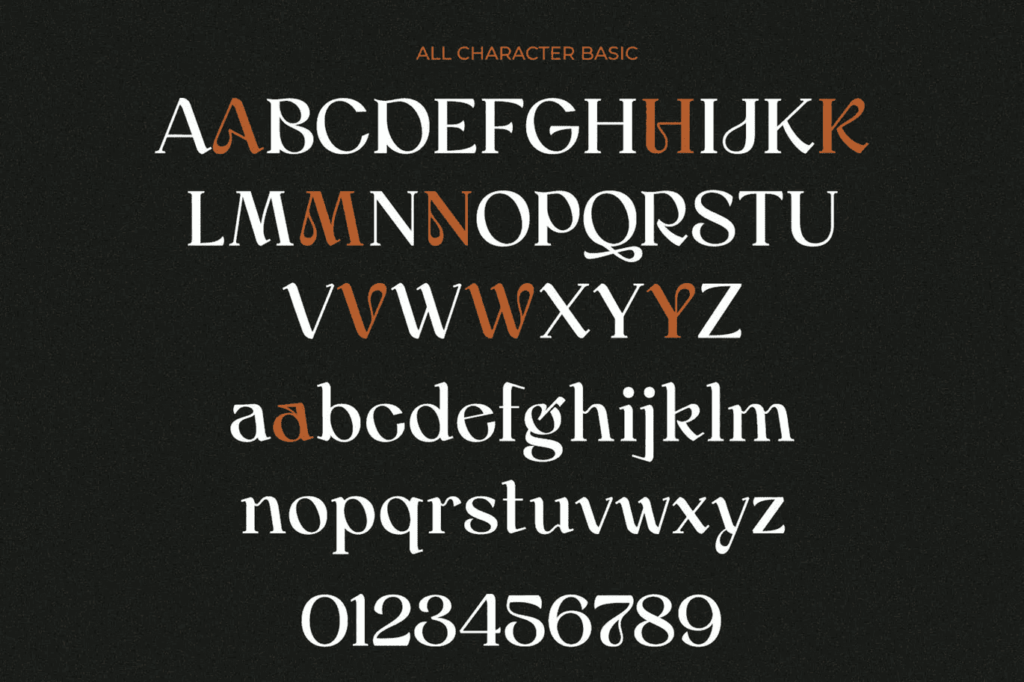
About Melian Kingsley Font
Melian Kingsley is a display serif typeface that is both current and graceful. This typeface is available in two styles: regular and italic. This typeface is Unicode PUA encoded, allowing complete access to all extra characters without the need for additional design software. To examine and copy one of the extra characters to paste into your preferred text editor/application, Mac users can use Font Book, and Windows users can utilize Character Map. The font was designed and shared by Heinzel Standard.
Advertising, branding, logotypes, packaging, titles, headlines, and editorial design are all areas where Melian Kingsley excels. The Typeface is ideal for any bold texture project; you can use it to create headlines and subheadings for any newspaper or magazine. The font is also suitable for branding projects, homeware designs, product packaging, and as a classy text overlay on any background image.
StyleDisplay Serif.